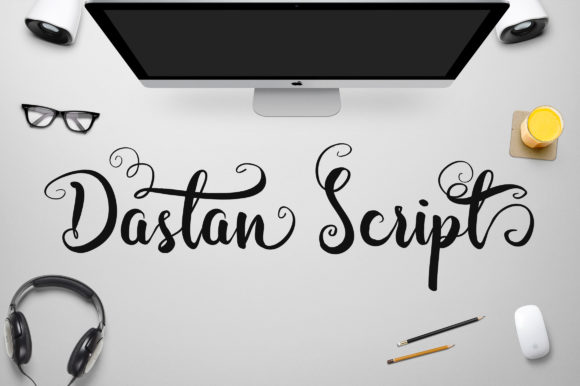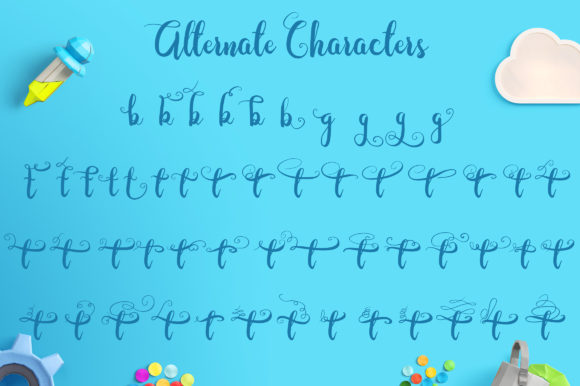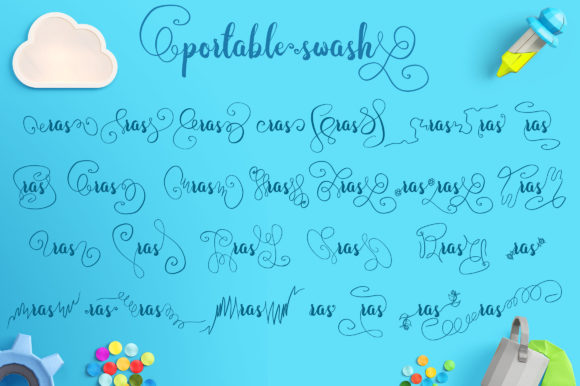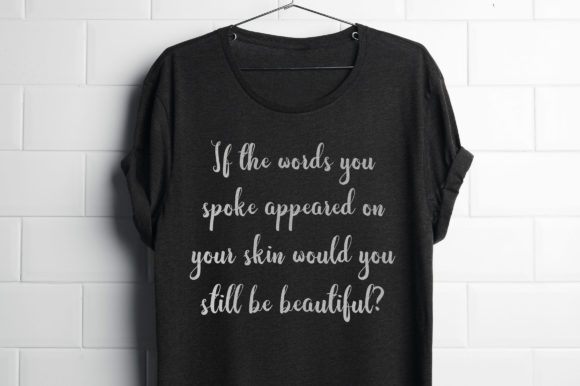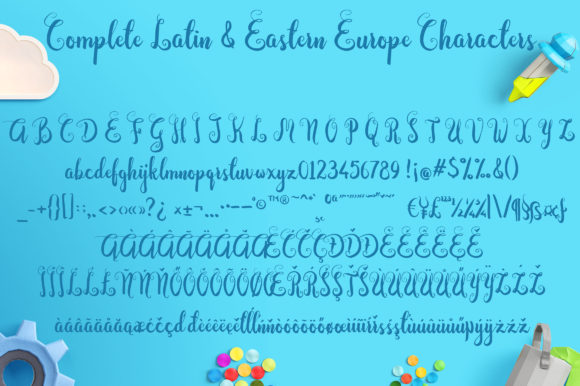
HomeScript FontsDastan Script Font Script Fonts Dastan Script Font FacebookXPinterestWhatsApp Dastan Script Font Poster 2 Dastan Script Font Poster 3 Dastan Script Font Poster 4 Dastan Script Font Poster 5 About Dastan Script Font Dastan is a fun and playful handwritten font with a romantic feel. Get inspired by its unique charm! DOWNLOAD NOW People also explored Sintesa Font Recherche Font Barelyn Script About Radio Font Trendy Candy Font Qumalla Font Ashtanga Overstability Font Nevalm Font 302 0 TagsDastan Script Font Previous articleJadeline Script FontNext articleMonatta Font LEAVE A REPLY Cancel reply Comment: Please enter your comment! Name:* Please enter your name here Email:* You have entered an incorrect email address! Please enter your email address here Website: Save my name, email, and website in this browser for the next time I comment. Personal Use Free Dacquoise Personal Use Free Read more about this font Equestrain Personal Use Free Read more about this font Straighler Personal Use Free Read more about this font Baby Magnolia Personal Use Free Read more about this font BLOG Exploring Font Trends Shaping Communication in the Digital Era Fonts, like all design elements, are subject to trends. They play a crucial role in communicating a brand's personality,... Free Fonts Risk: Why Free Fonts Can Be Dangerous for Designers Free vs Paid Fonts: Why Investing in Premium Fonts Is Worth It To increase your work productivity, choose the most readable fonts.